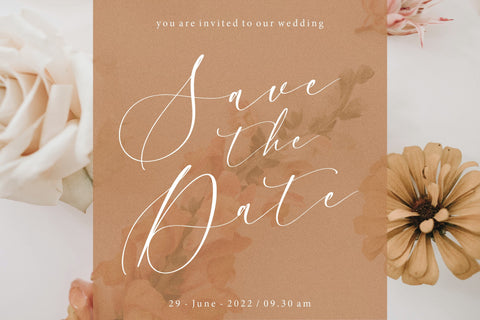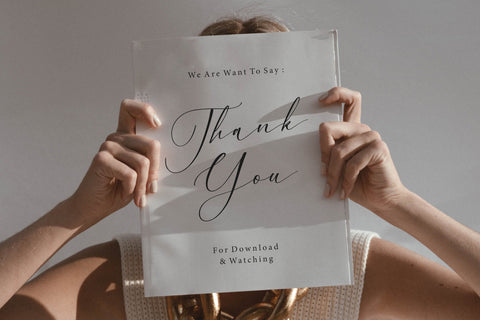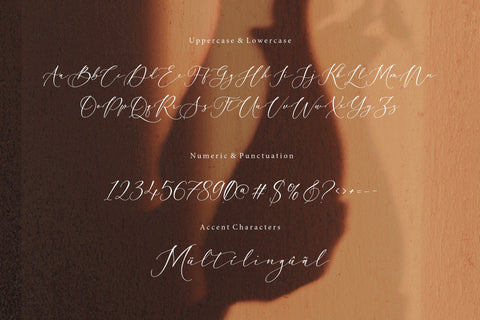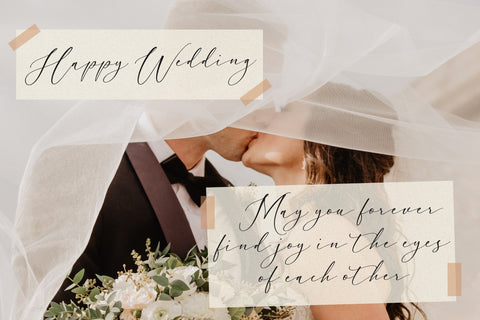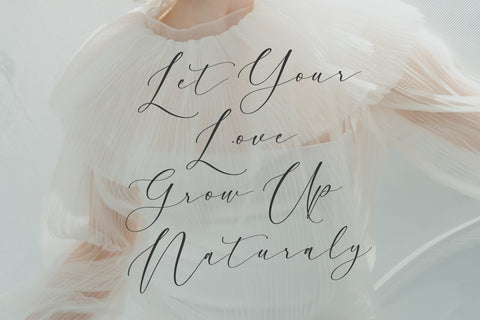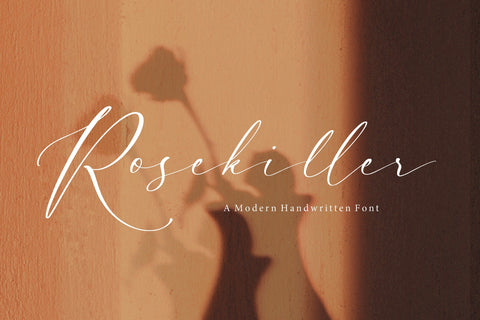
Rosekiller Modern Handwritten Font
Introducing by Letterative Studio : Rosekiller Font
Rosekiller is a Modern Handwritten Font
Rosekiller is a unique and elegant handwritten font. It looks beautiful on a variety of designs requiring a personalized style, such as wedding invitations, thank you cards, greeting cards, logos, and so on.
Alpinet also multilingual support